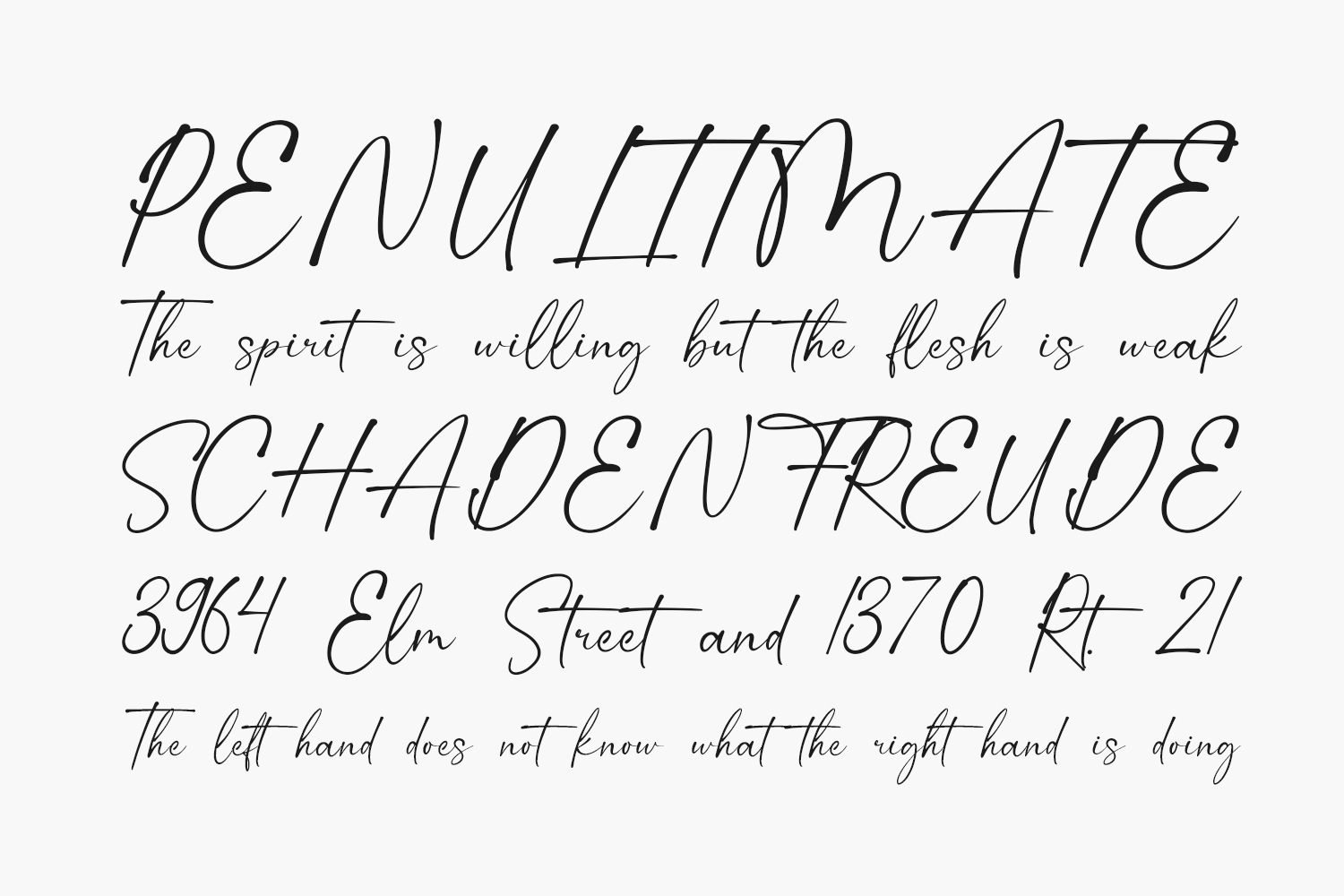
Callista Free Font Family is a lovely and timeless handwritten font. It is the best choice for creating eye-catching logos, branding, and quotes.
Designed by Ribeth Studio